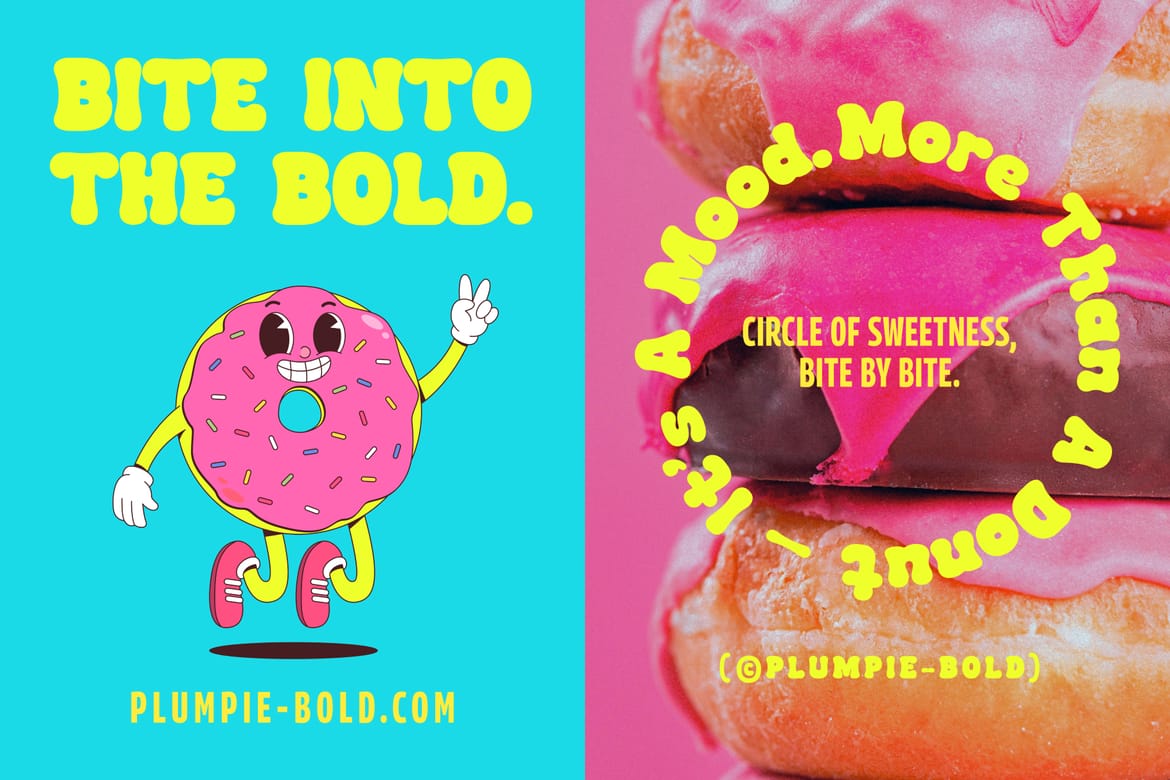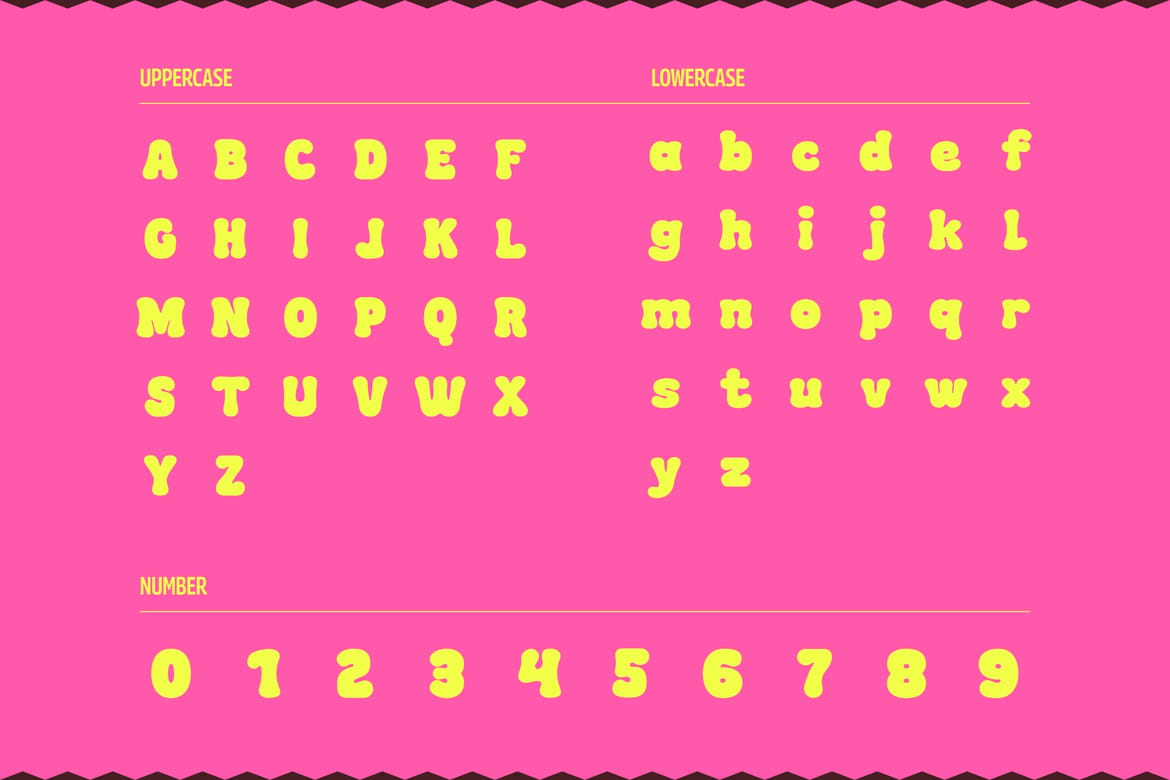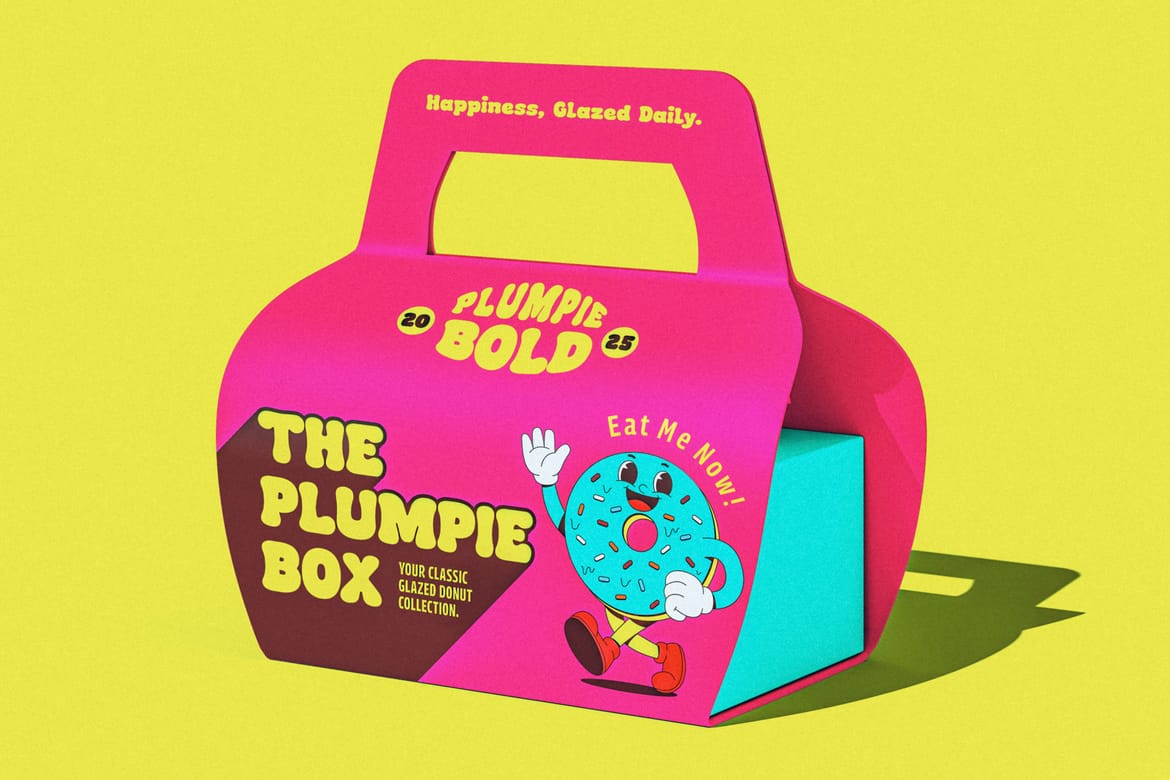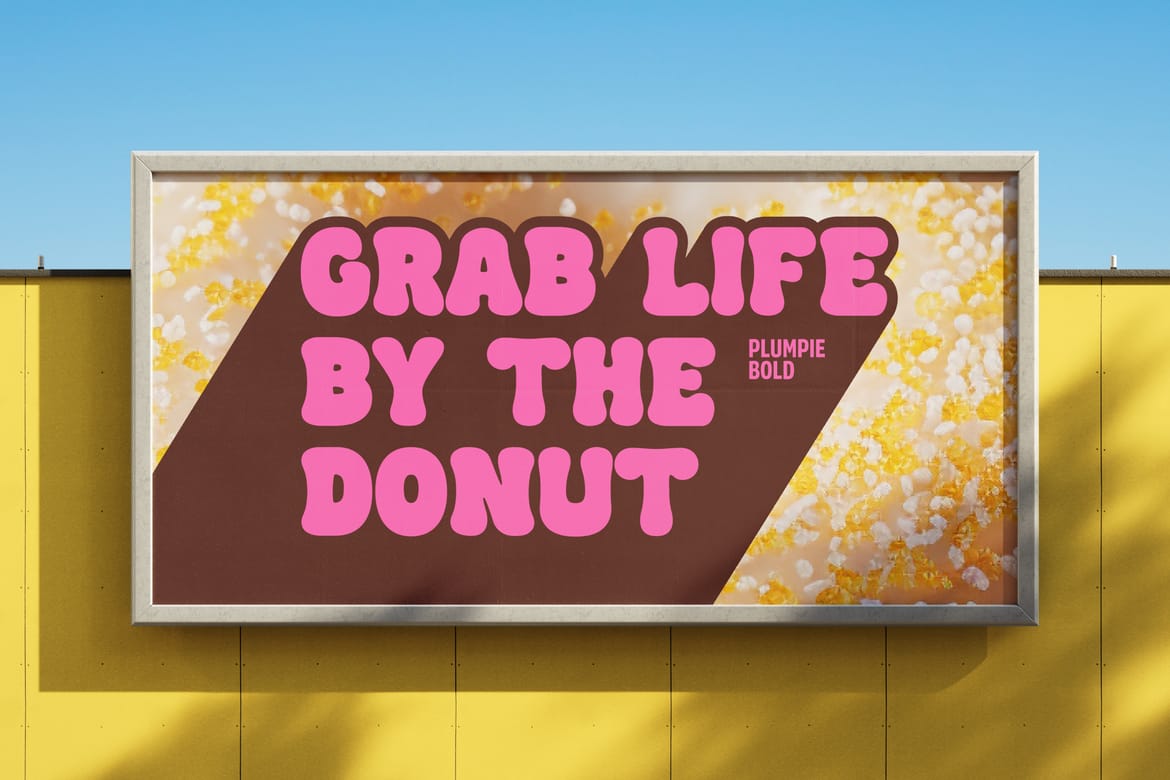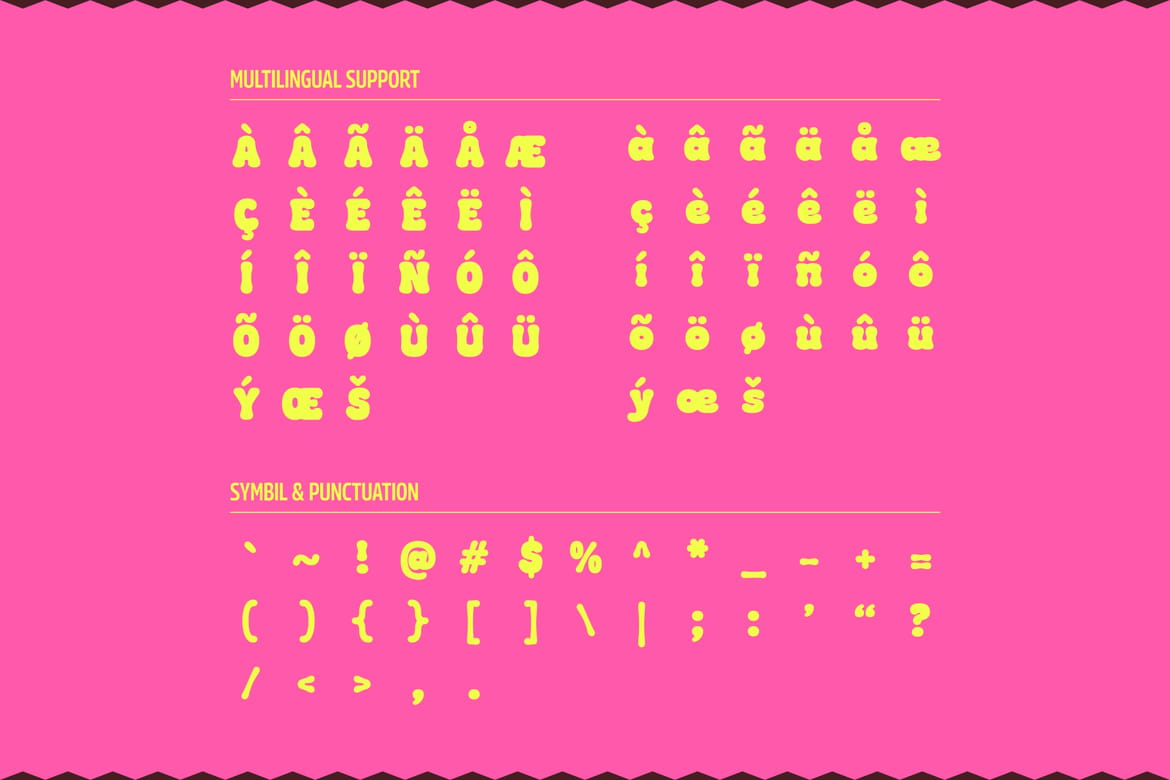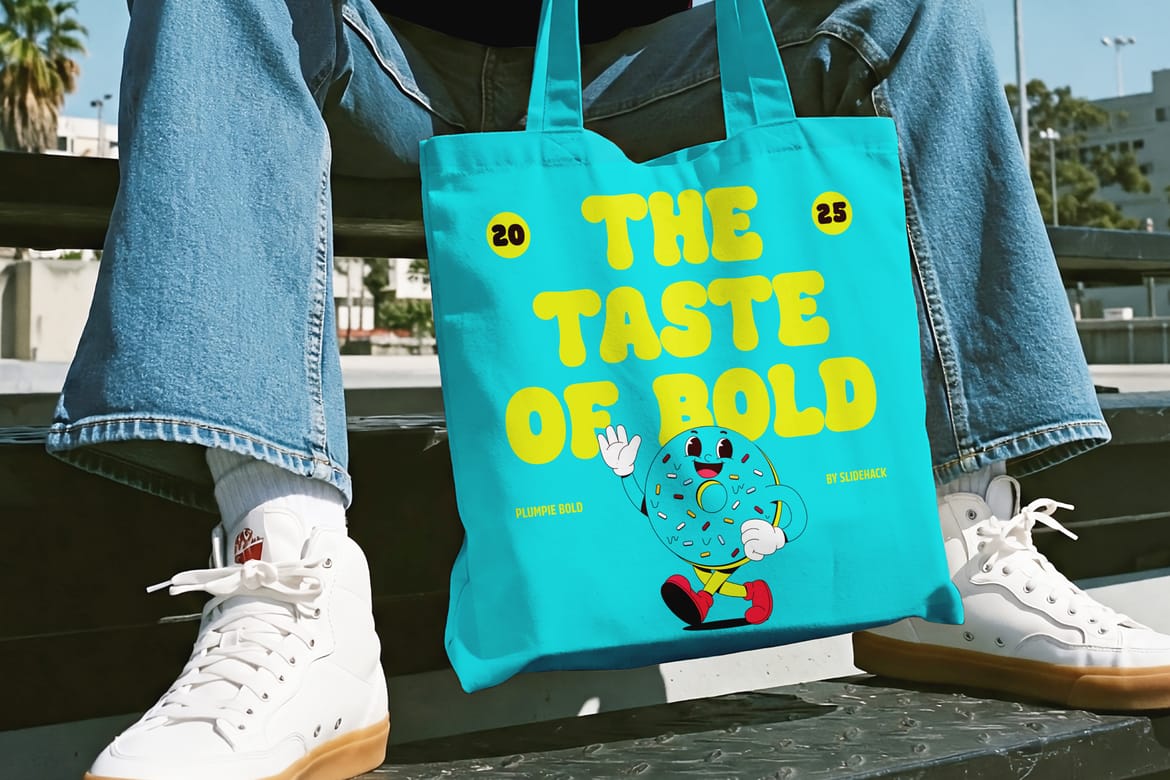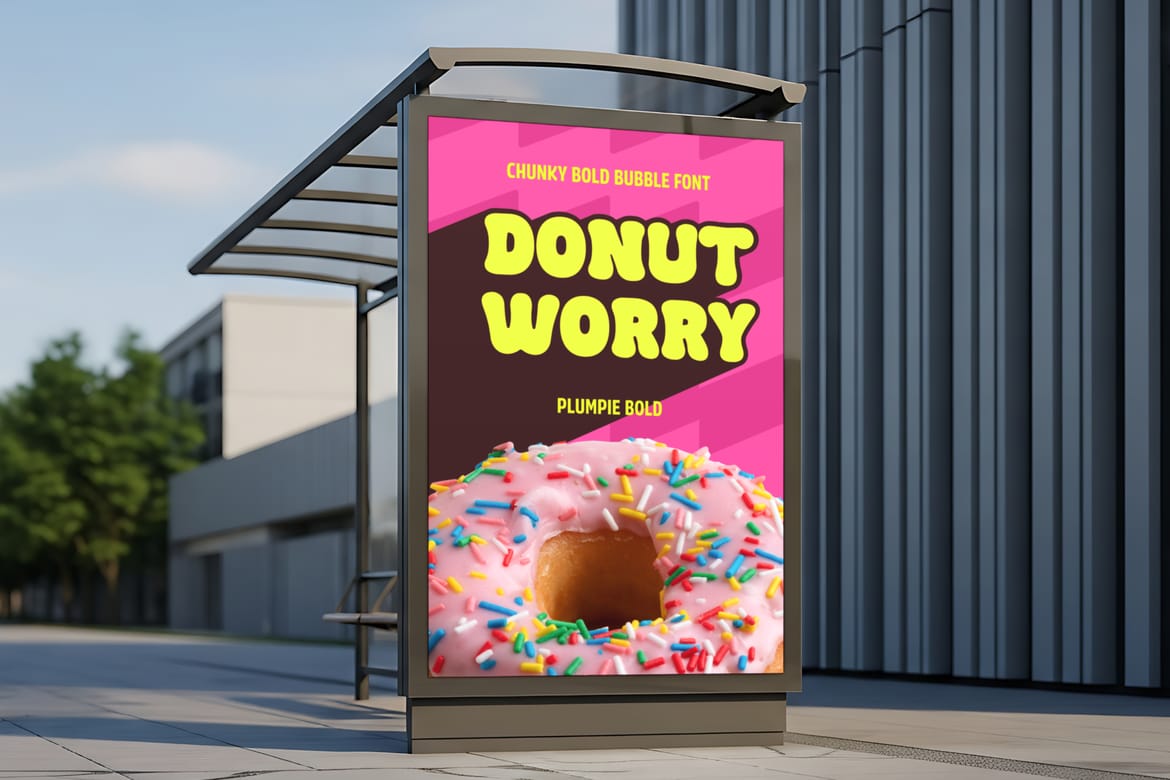
Plumpie – Display Font brings bold, bubbly, and playful style perfect for branding, food packaging, posters, kids’ designs, and creative projects. Its chunky curves and fun character make your text stand out. Great choice for designers seeking a modern, eye-catching, and versatile font that instantly grabs attention.
Chunky bubble display with a sweet retro candy vibe
Perfect for dessert branding, kids packaging, and playful promotional graphics
Puffy rounded letterforms create a bold sugary personality that feels fun and irresistible